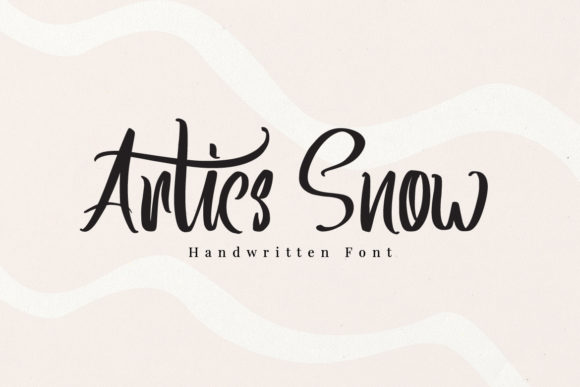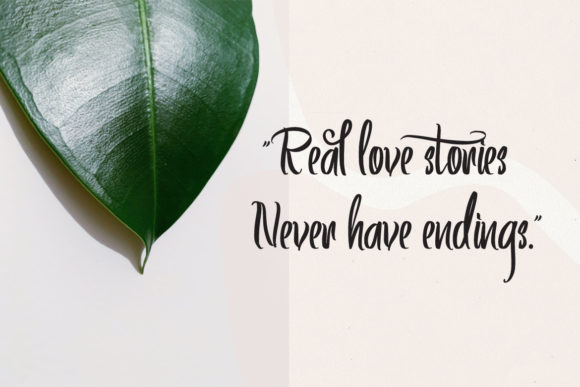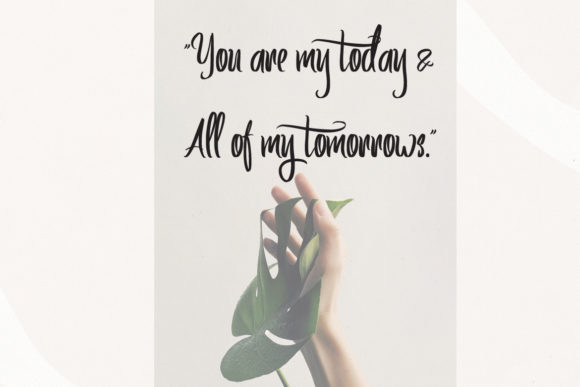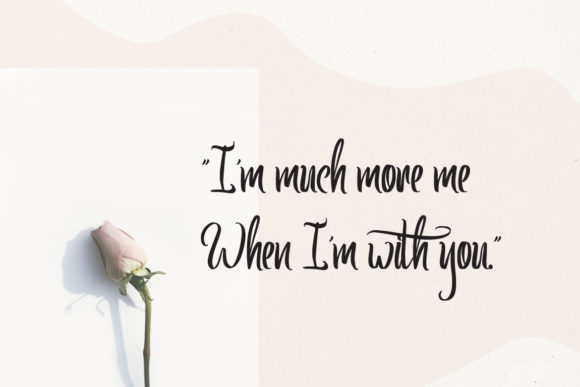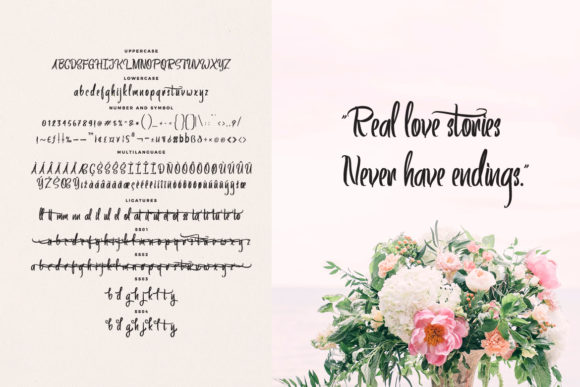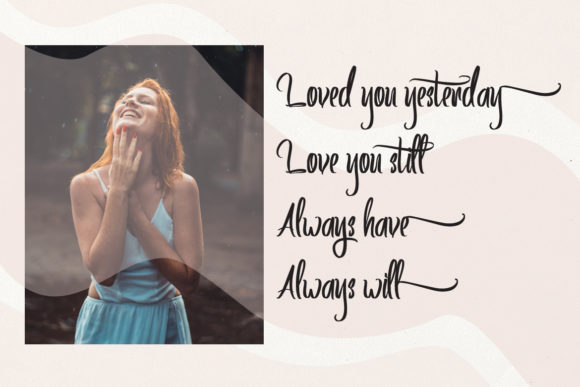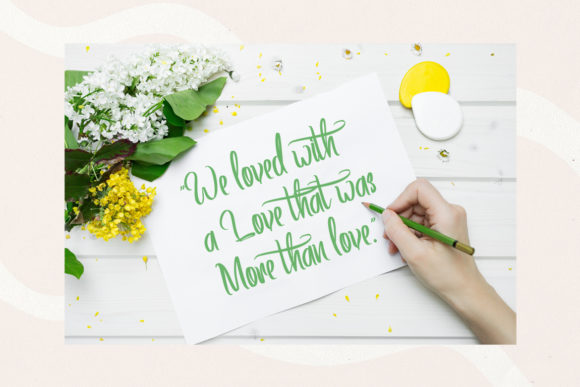
HomeScript FontsArtics Snow Font Script Fonts Artics Snow Font FacebookXPinterestWhatsApp Artics Snow Font Poster 2 Artics Snow Font Poster 3 Artics Snow Font Poster 4 Artics Snow Font Poster 5 Artics Snow Font Poster 6 Artics Snow Font Poster 7 About Artics Snow Font Artics Snow is a friendly and modern script font with a unique style. Get inspired by its contemporary coolness! DOWNLOAD ON CREATIVE FABRICAThis font is sold and delivered by Creative Fabrica. Font Canyon may earn a commission if you buy through this link. People also explored Coffe Font Bowling Font Black Font Boatsyard Font Realistic Mock-ups on Vintage Background Inklijn Beylish Font Madyna Font Monogram Love Baby Font 338 0 TagsArtics Snow Font Previous articleBrightsome FontNext articleSignathy Font LEAVE A REPLY Cancel reply Comment: Please enter your comment! Name:* Please enter your name here Email:* You have entered an incorrect email address! Please enter your email address here Website: Save my name, email, and website in this browser for the next time I comment. Personal Use Free Vembazax Rm Personal Use Free Read more about this font Cintya Personal Use Free Read more about this font Crayones Personal Use Free Read more about this font Aline Personal Use Free Read more about this font BLOG Modern Sans-Serif Fonts That Brands Love in 2025 In 2025, modern sans-serif fonts remain a top choice for brands looking to project clarity, professionalism, and... Best Fonts for T-Shirt Design – Top 2025 Picks Exploring Font Trends The 10 Best Handwriting Fonts to Add Personality to Your Designs